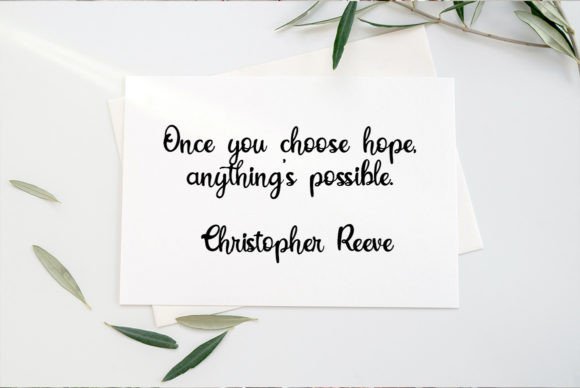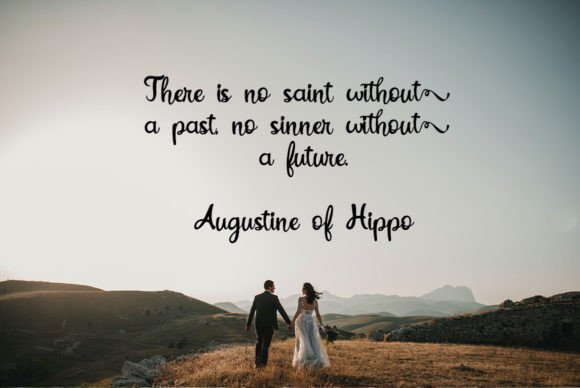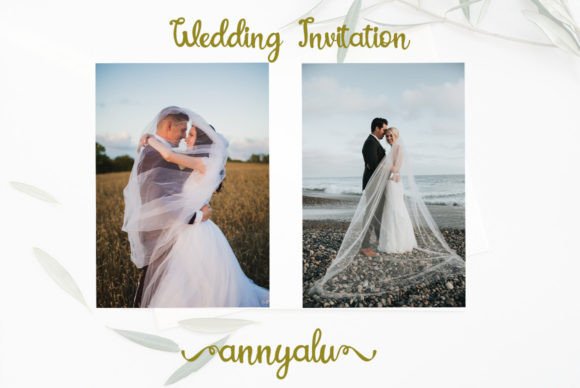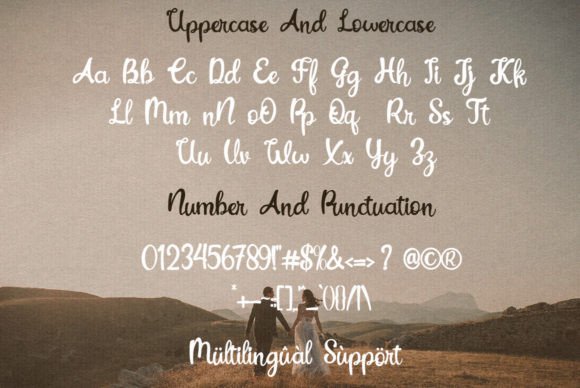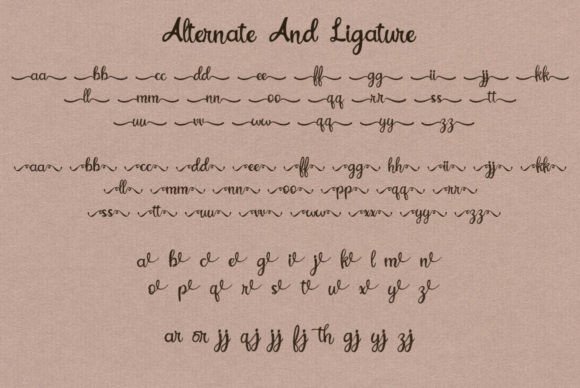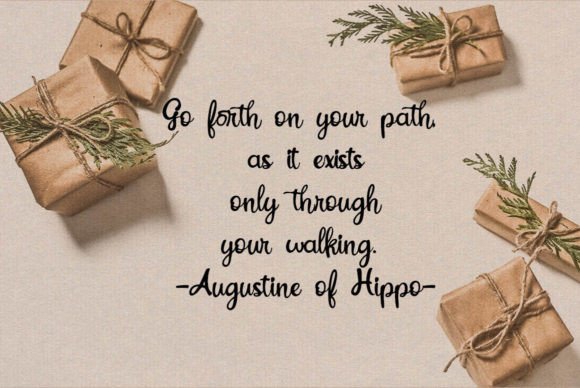
About Chiellini Font
Chiellini stands as a distinctive and elegant handwritten font, tailor-made for brand and logo designs. With its unique charm, it brings a touch of sophistication to various design applications, making it particularly well-suited for invitations, business cards, branding, and logo creation. The inherent qualities of Chiellini promise not just a font but a pathway to crafting a classy, elegant, and unmistakably unique visual identity for your projects.
The uniqueness of Chiellini lies in its handcrafted design, which deviates from standard typefaces to provide a personalized and artistic touch. The elegance it exudes adds a layer of refinement, making it a perfect choice for creating logos that stand out in the crowd. Chiellini’s graceful strokes and carefully crafted characters contribute to an overall aesthetic that is not only visually pleasing but also communicates a sense of style and exclusivity.
When applied to invitations, Chiellini transforms the text into a visual element that complements the tone of your event, be it formal or celebratory. Business cards, adorned with the distinctive Chiellini font, make a lasting impression, conveying professionalism and uniqueness. In branding and logo designs, Chiellini offers the opportunity to create a visual signature that reflects the essence of your brand — a symbol of class, elegance, and individuality.
The versatility of Chiellini ensures that it adapts seamlessly to various design contexts, providing a harmonious blend of uniqueness and elegance. The font becomes a powerful tool for designers and businesses looking to establish a strong visual identity that resonates with their audience.
In summary, Chiellini is not just a font; it’s a design asset that opens up possibilities for creating logos and brand materials that leave a lasting impact. Its uniqueness and elegance make it a valuable addition to any designer’s toolkit, offering the perfect blend of style and individuality. Elevate your brand or project with Chiellini and craft a visual identity that speaks volumes about class and elegance.